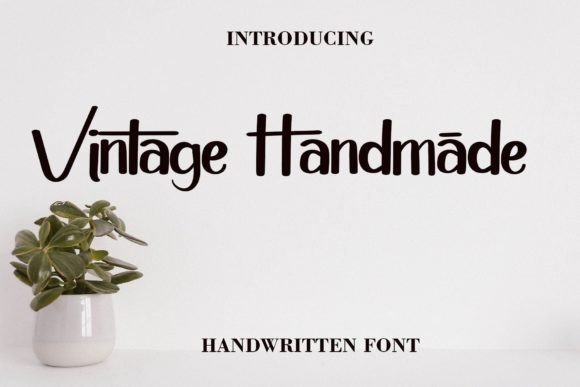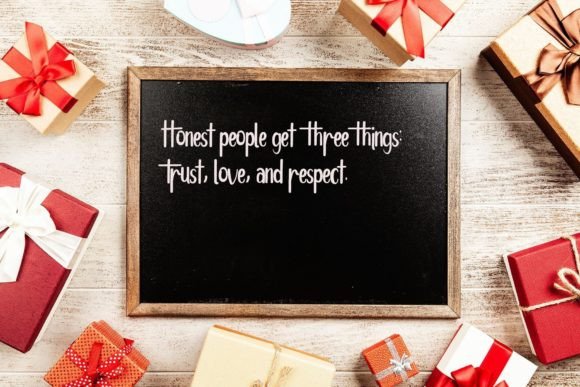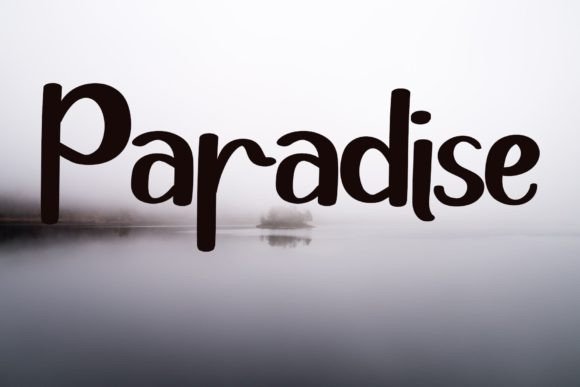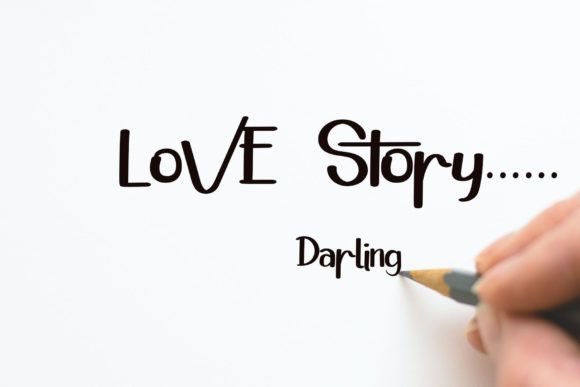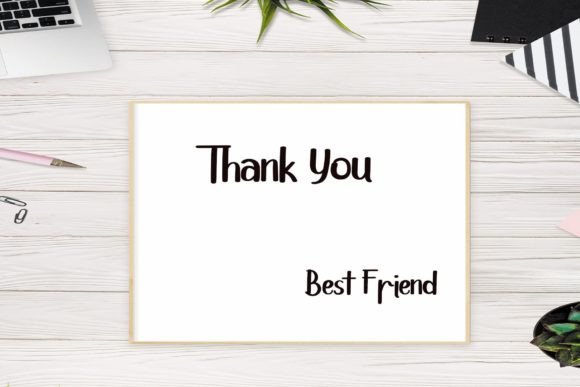
About Vintage Handmade Font
Vintage Handmade is a font with a cool, simple, and playful handwritten style that adds a distinctive touch to your creative projects. Its versatility makes it suitable for a broad range of designs, effectively elevating them to new heights. Incorporating this font into your favorite creative ideas will undoubtedly breathe life into them, making them stand out with a unique and captivating charm.
The cool and simple aesthetics of Vintage Handmade contribute to its universal appeal. Its laid-back yet stylish appearance makes it a great fit for various design applications, from casual and playful projects to more sophisticated endeavors. The simplicity of the font ensures that it can complement a wide array of creative concepts.
The handwritten quality of Vintage Handmade exudes a sense of authenticity and individuality. The playful strokes and casual vibe give your designs a human touch, fostering a connection with your audience. This makes Vintage Handmade an excellent choice for projects where a personal and approachable feel is desired.
Versatility is a key feature of Vintage Handmade. Whether you’re working on vintage-inspired designs, contemporary branding, or casual promotional materials, this font adapts effortlessly to different styles and themes. It brings a dynamic and lively energy to your projects, making them visually engaging and memorable.
By adding Vintage Handmade to your creative toolkit, you infuse your designs with a touch of character and playfulness. Watch how this font transforms your favorite ideas into vibrant and lively creations. From posters to social media graphics, Vintage Handmade has the power to enhance your designs and give them a unique, handmade flair. Let this font be the catalyst that brings your creative visions to life and sets your projects apart.